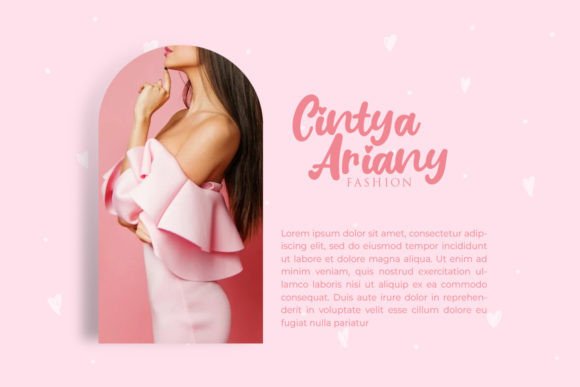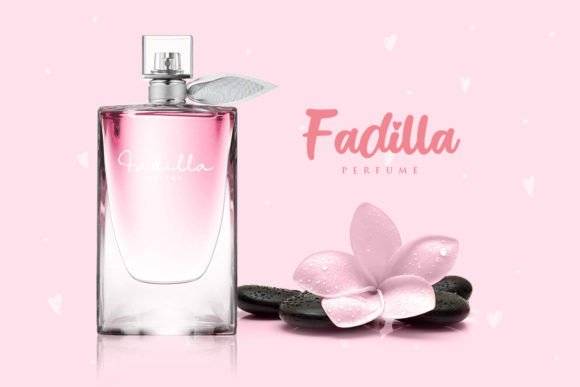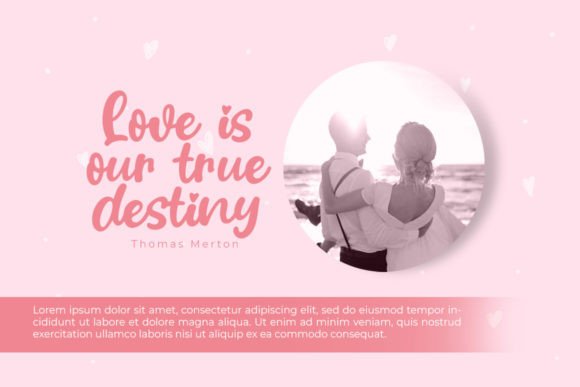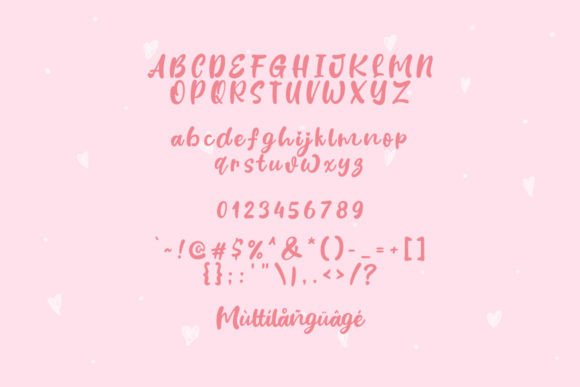
Introduction to Love Meadow Font
Have you ever stared at a blank page, waiting for inspiration to strike? It’s a feeling every designer knows well. But what if that spark was just a font away? Enter Love Meadow Font, a fresh and unique bold script font that’s about to take your creative project to the next level.
This lovely twist on traditional script fonts is a game-changer for designers looking to add a touch of whimsy to their designs. With its playful and delicate vibe, Love Meadow Font is the perfect addition to any project, from wedding invitations to social media graphics. And the best part? It’s free to download, making it an accessible design resource for creatives of all levels.
Key Features of Love Meadow Font
- High-quality design for creative projects, perfect for adding a touch of elegance and sophistication.
- Features a unique, handwritten style with subtle flair and nuance, ideal for creating eye-catching designs.
- Perfect for use in a variety of design contexts, from wedding invitations to branding materials.
Honest Review: Love Meadow Font
I recently had the chance to work with the Love Meadow Font on a creative project, and I must say, it’s a great addition to any design resource.
What works well: ✨ The font’s high quality and delicate design make it perfect for a variety of projects, from wedding invitations to social media graphics. I also appreciate the transparent background, which allows for seamless integration with other design elements.
However, I do have a few limitations to mention: ⚠️ The font’s small size can make it difficult to read at very large or very small scales. Additionally, the design may not be suitable for projects that require a bold or edgy look.
Overall, I’m impressed with the Love Meadow Font and would recommend it to designers looking for a high-quality, versatile font for their next creative project.
Tips for Getting the Most Out of Love Meadow Font
Use Love Meadow Font to add a touch of elegance and sophistication to your design projects. Experiment with different font sizes, colors, and combinations to create a unique and eye-catching effect.
Love Meadow Font is ideal for wedding invitations, baby shower invitations, and other special occasion invitations. It’s also great for creating beautiful quotes, posters, and social media graphics.
Can I use the Love Meadow Font with a transparent background?
Yes, the Love Meadow Font features a transparent background, making it ideal for creative projects that require a high level of design flexibility. You can easily combine it with other design elements or use it as a standalone design resource.